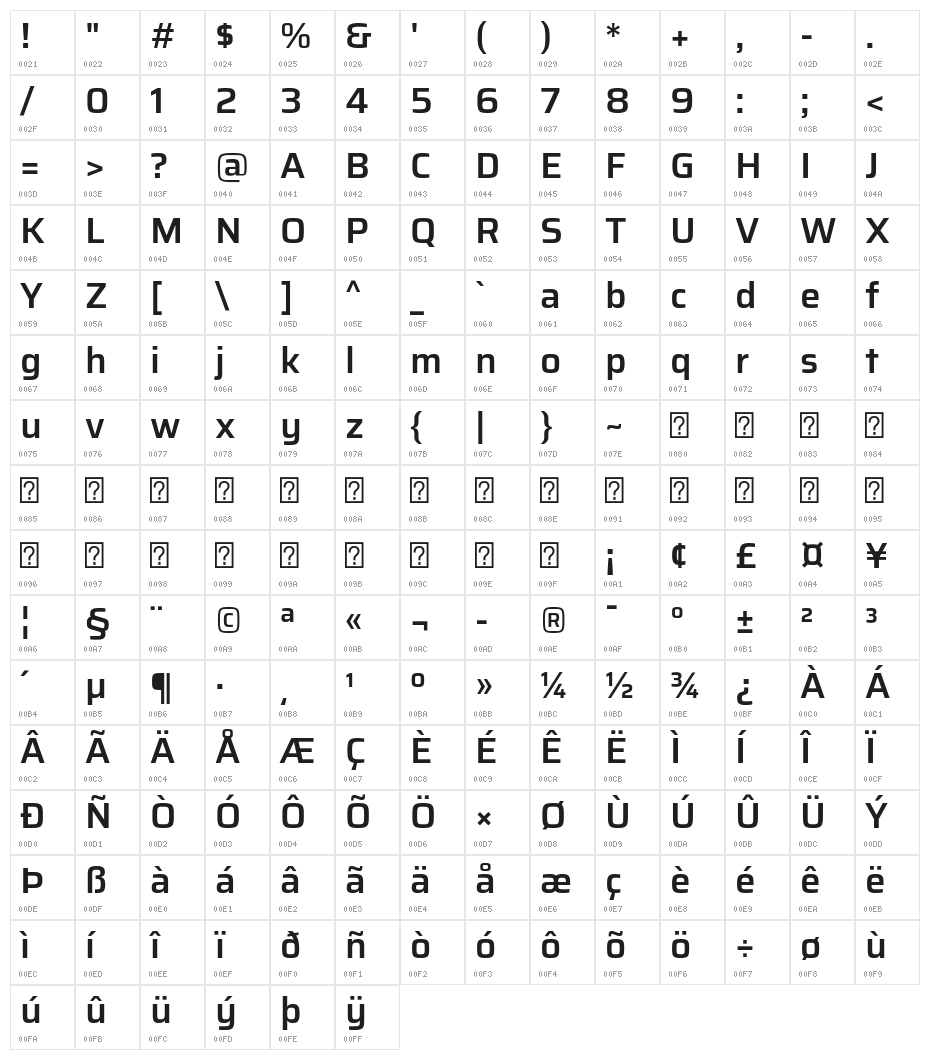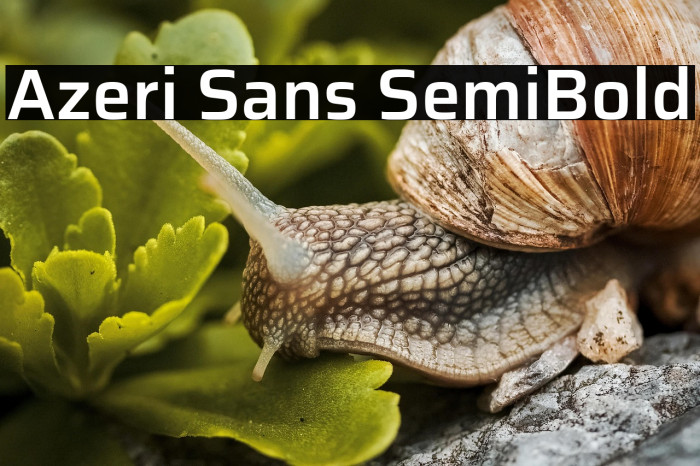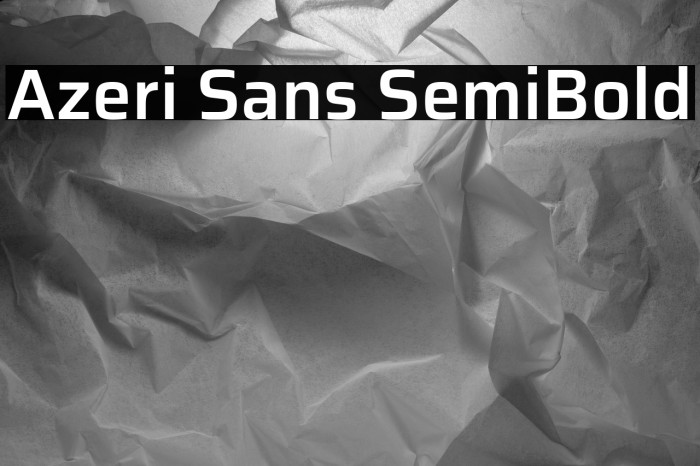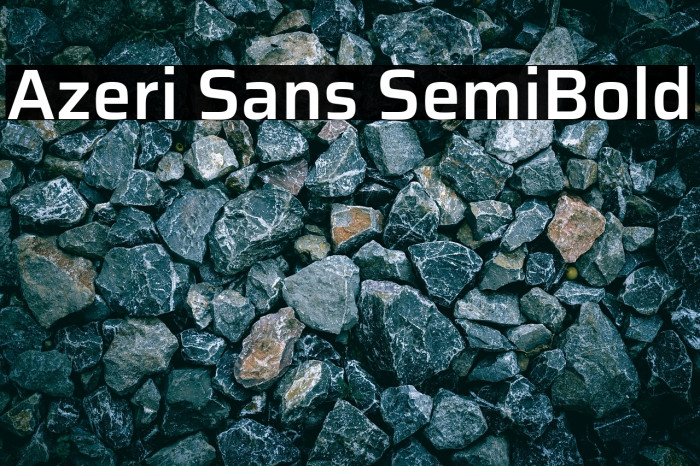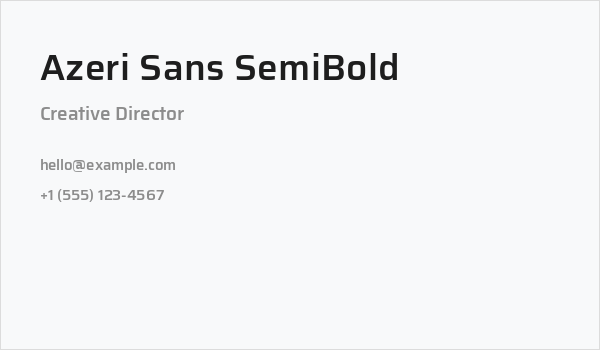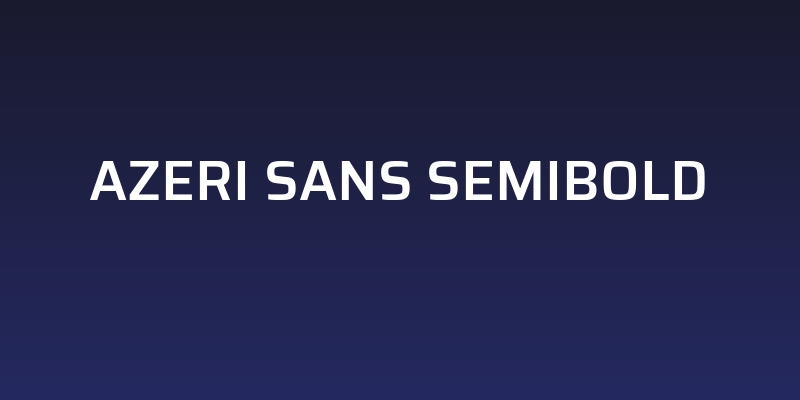
Azeri Sans SemiBold Font
Azeri Sans SemiBold Description
This typeface features a clean and modern sans-serif design with semi-bold weight, offering a balanced and professional appearance. The characters are well-proportioned with a consistent stroke width, providing a uniform look across both uppercase and lowercase letters. The numerals and special characters maintain the same clean lines, ensuring readability and versatility. The font's geometric shapes and slightly rounded edges contribute to its contemporary style, making it suitable for a wide range of applications.
| Proposed Projects | Ideal for branding, digital interfaces, signage, and editorial design projects. |